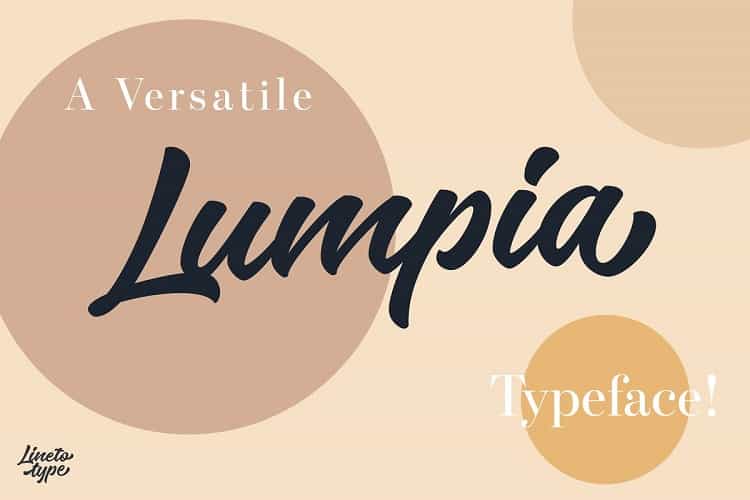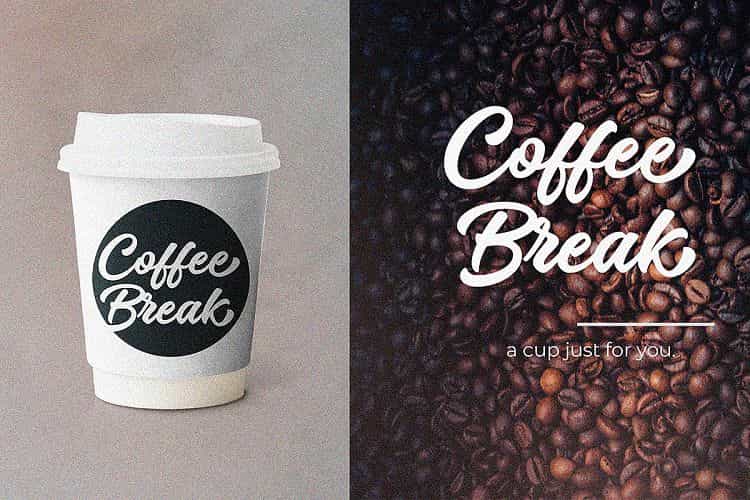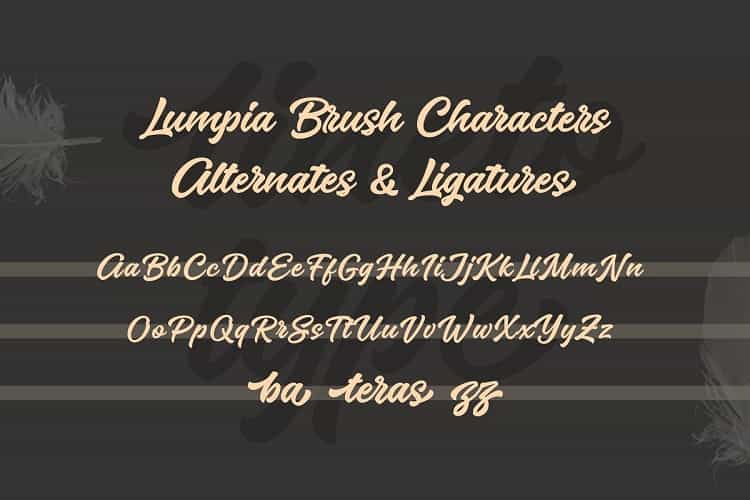
Lumpia is an handwriting brush script font that has natural nuance. This font is perfect for any project that requires creativity like logos and invitations, printed quotes, packaging for products, cards and headers, Logotype Poster, Letterhead Apparel Design Labels, and so on.